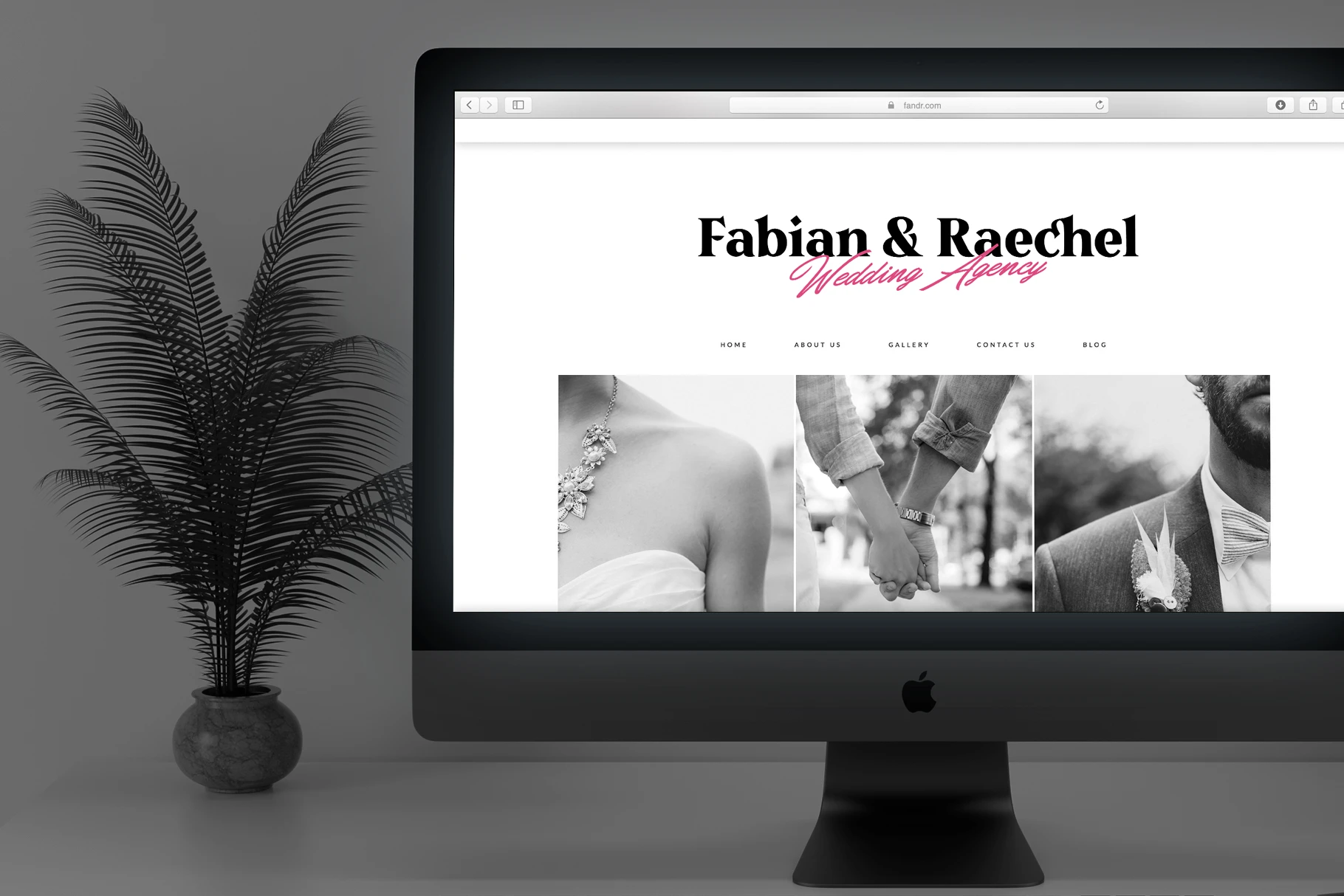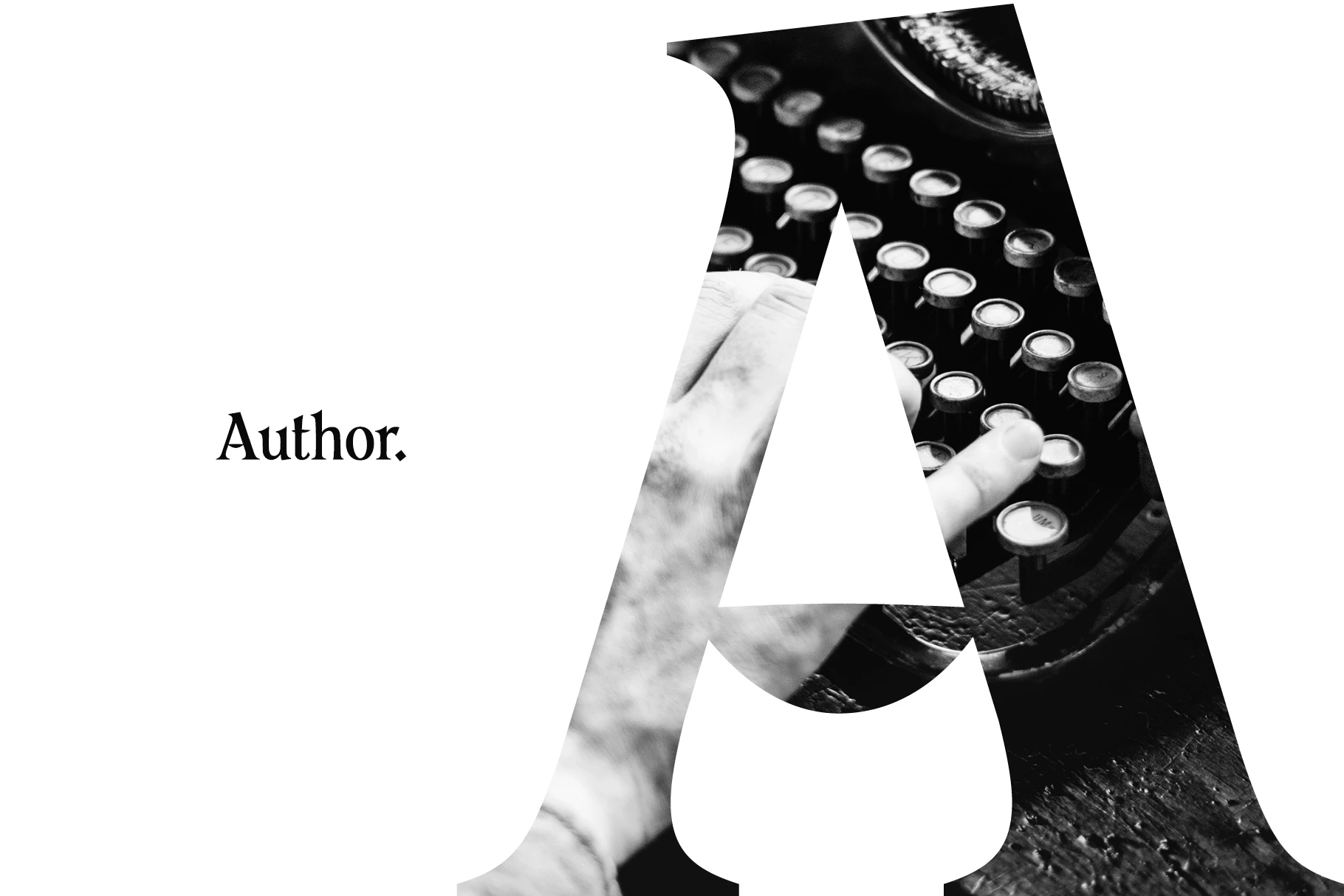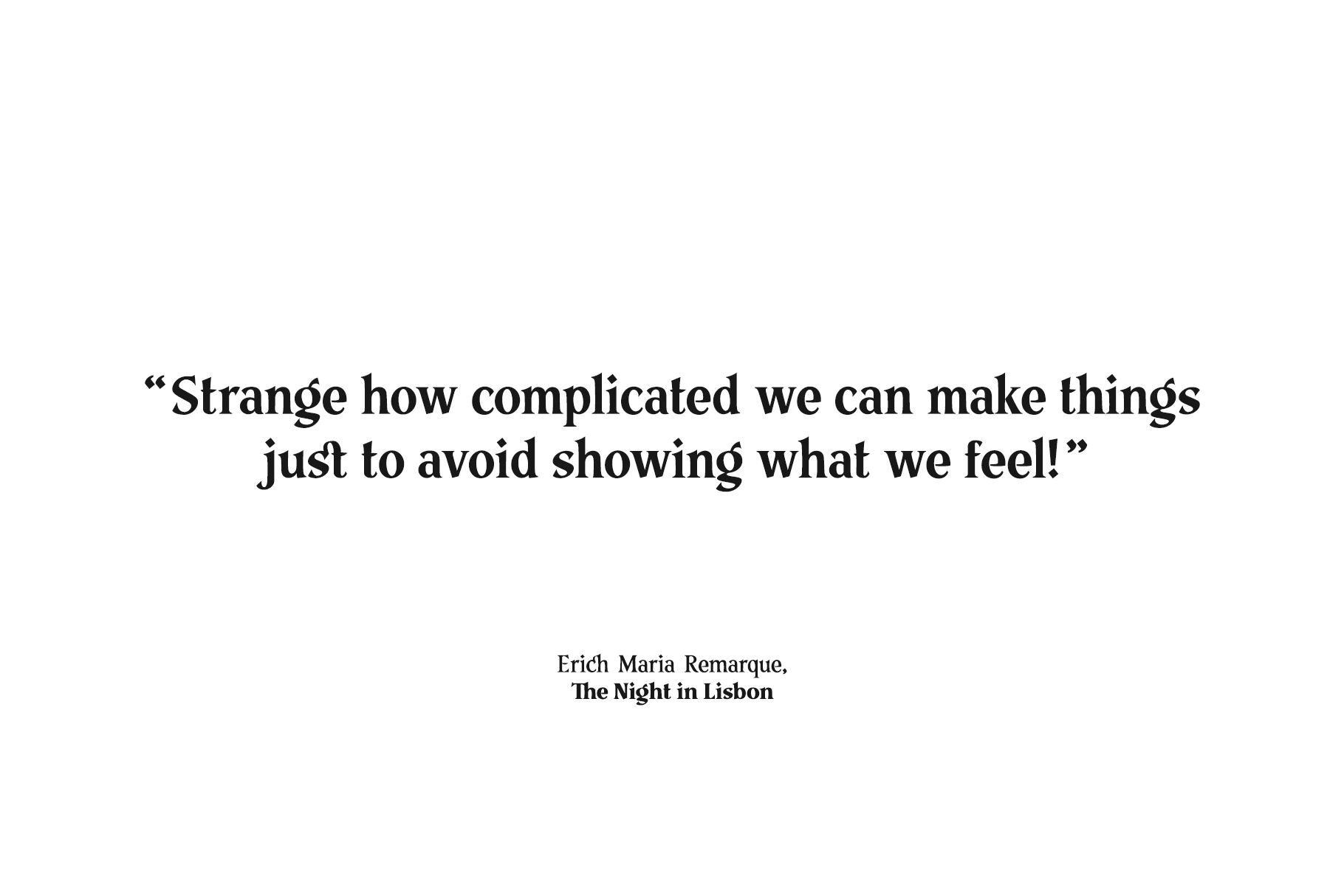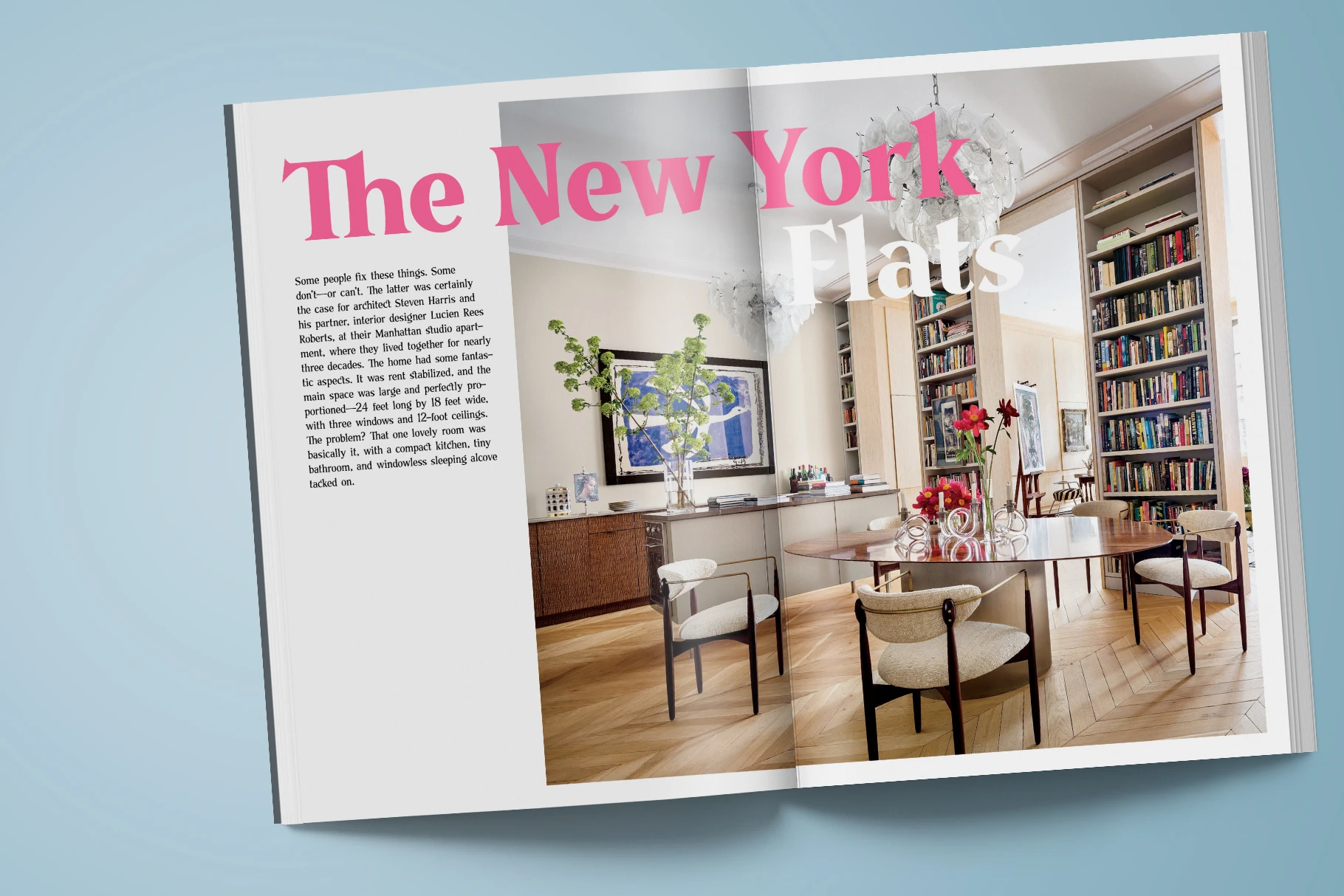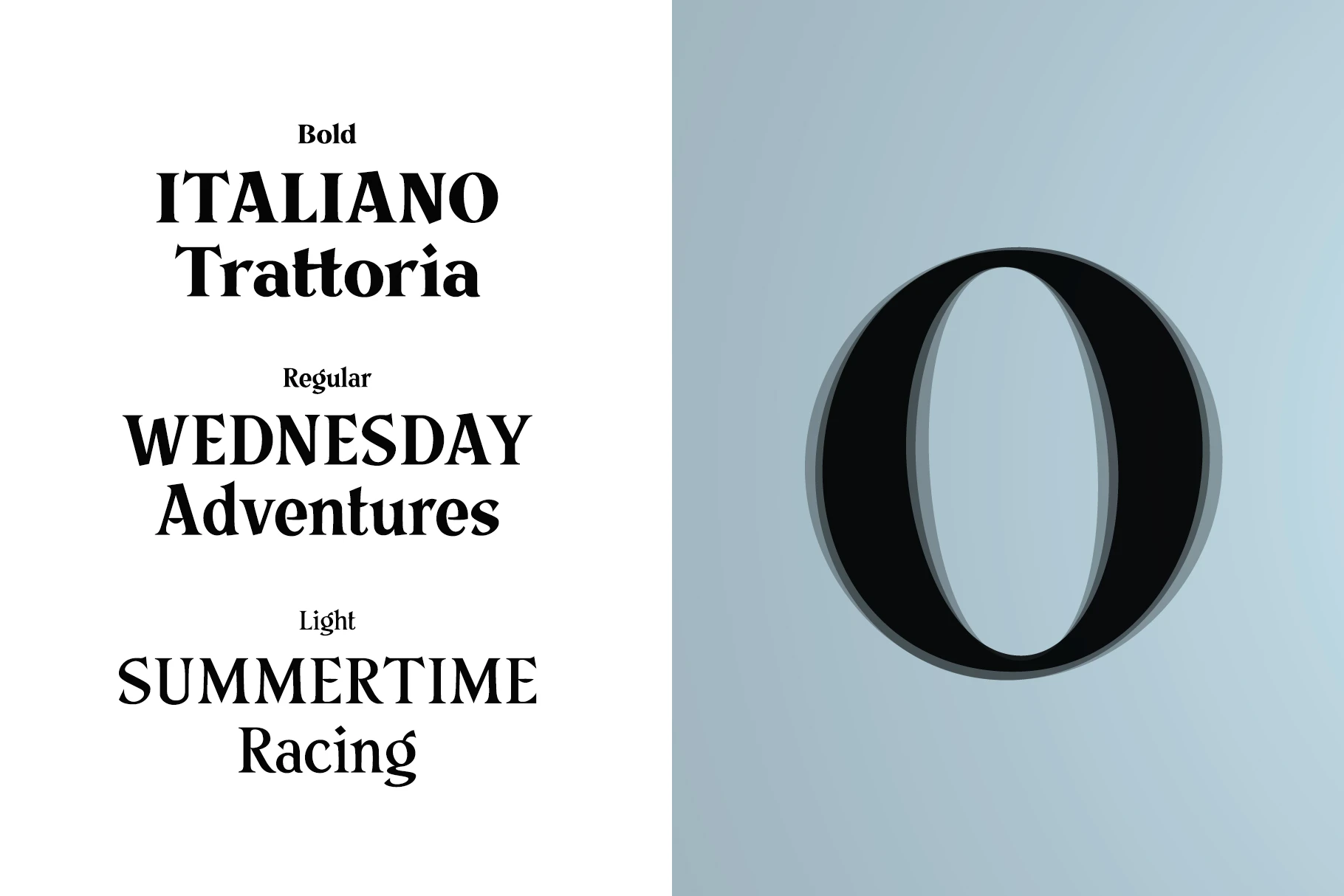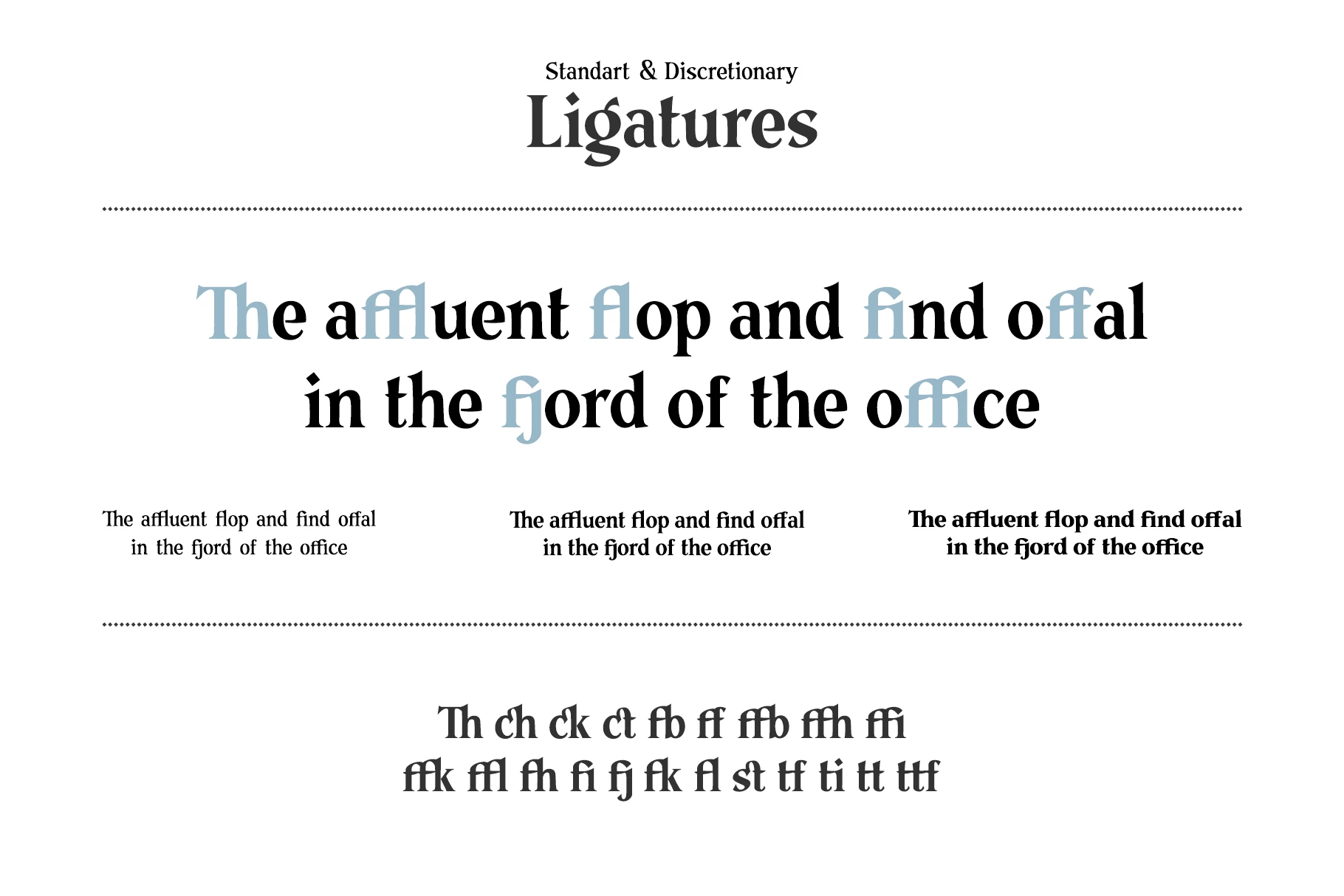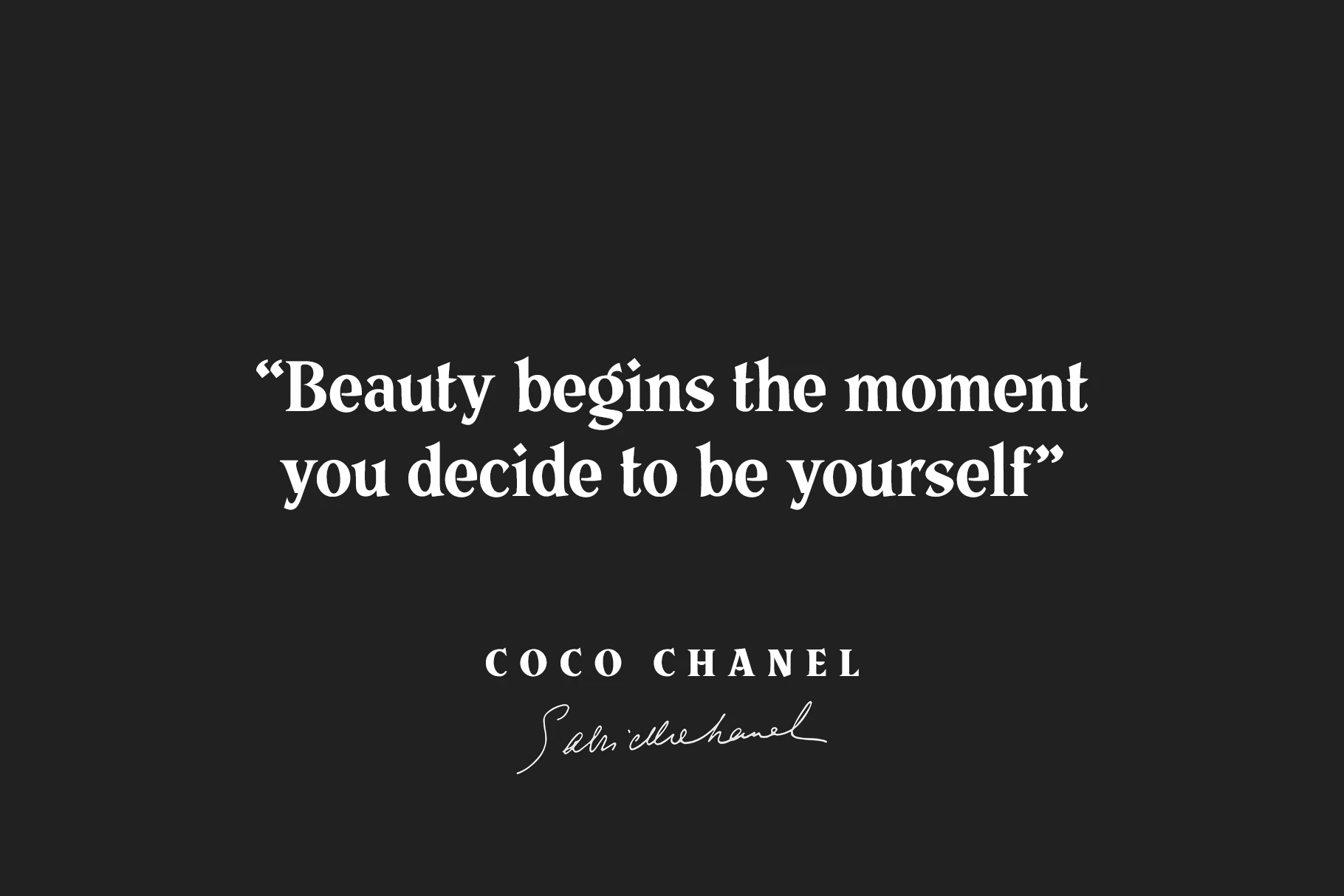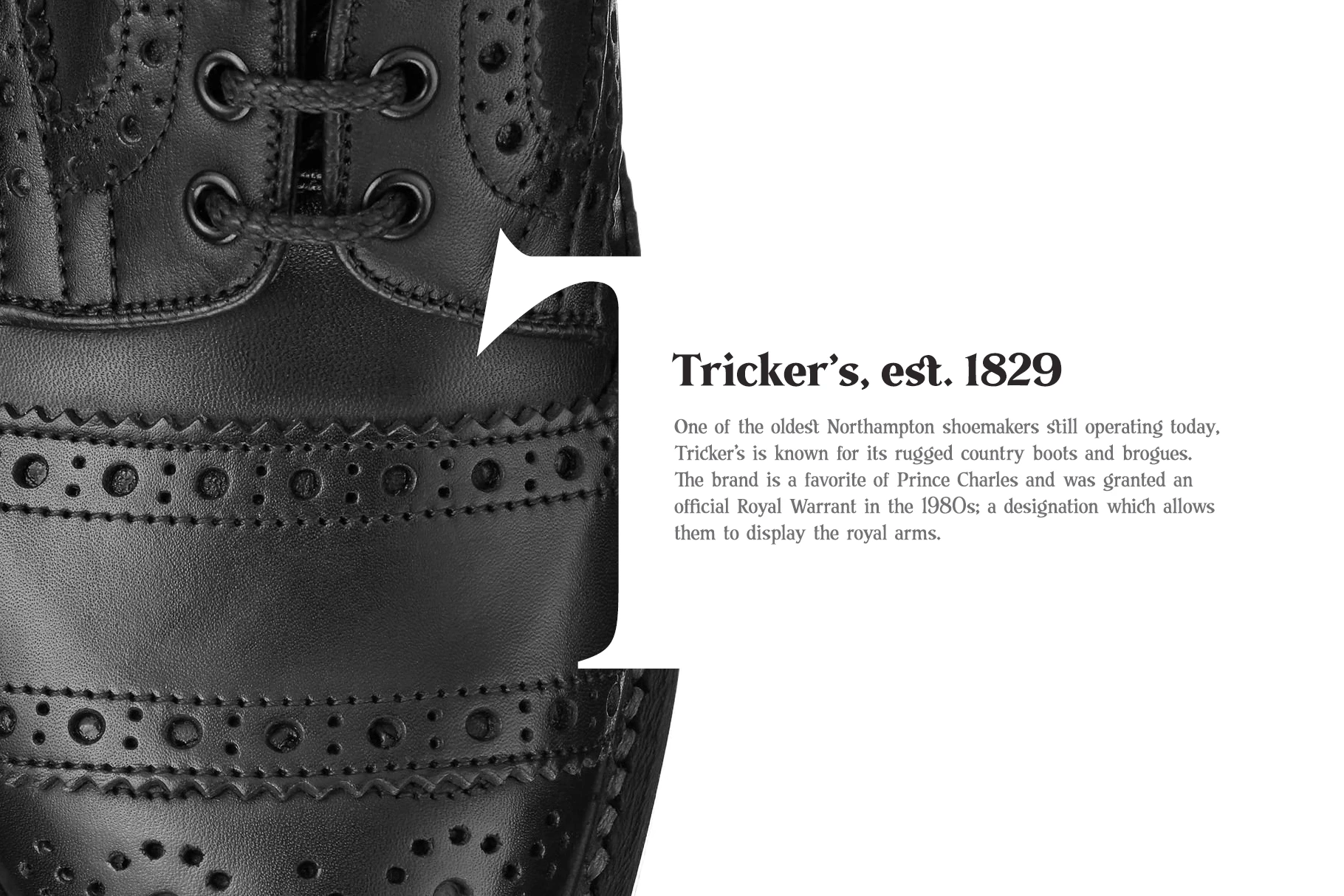
Telegraph Font Family
The Telegraph is a font family inspired by mid-20th-century British newspaper headlines. Features a classic, timeless look across three widths: Light, Regular, and Bold. Designed for headers, signs, logos, and also well-suited for text blocks.
The Light style is ideal for body text or light headers, especially when using wide tracking with capitals. Regular works well for quotes, subheaders, and simple slogans. Bold is built for powerful titles — strong and commanding, yet refined. Includes standard and discretionary ligatures through OpenType features. Made for elegant, vintage-inspired typography with a professional tone.